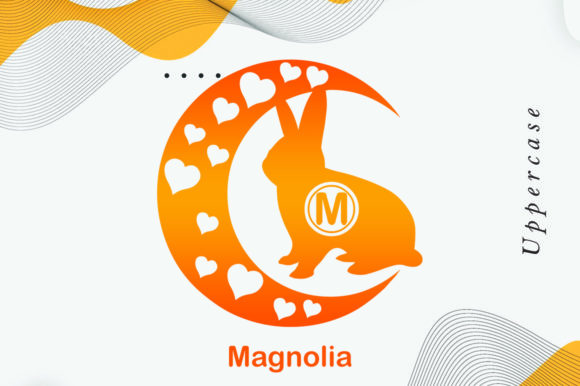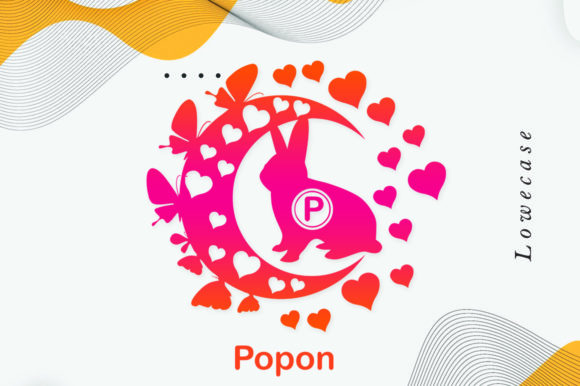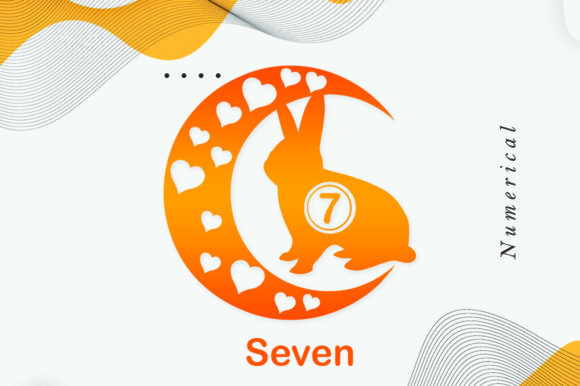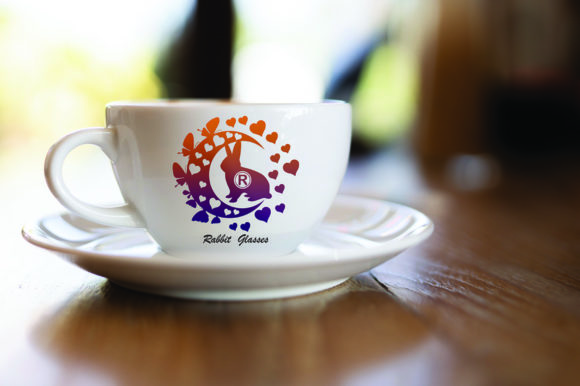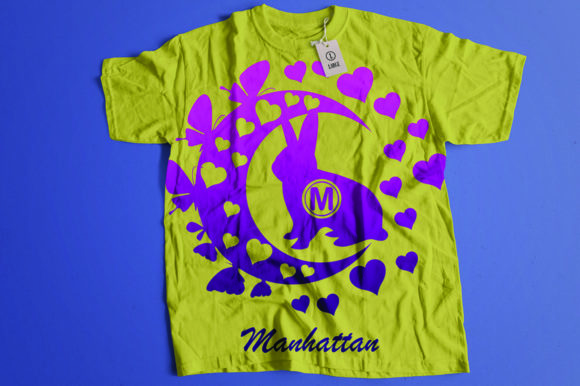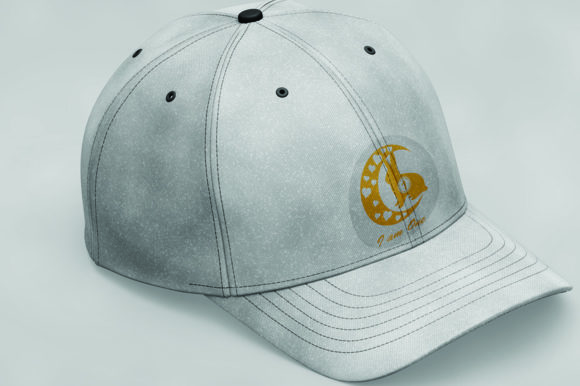
Introduction to Rabbit Moon Font
Rabbit Moon is a dainty and unique decorative font.
Add this romantic and lovely-looking font to each of your love letters, wedding invitations, or favorite design ideas, and you will be astounded by the outcome .